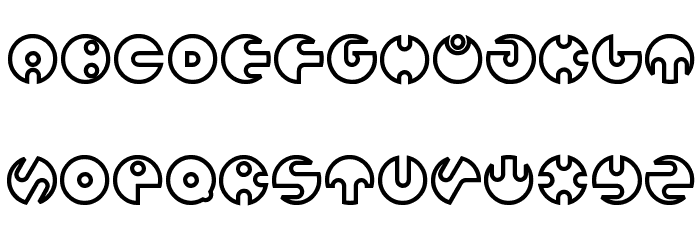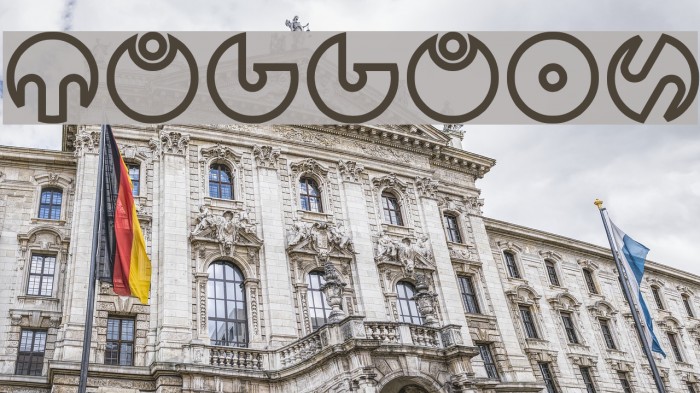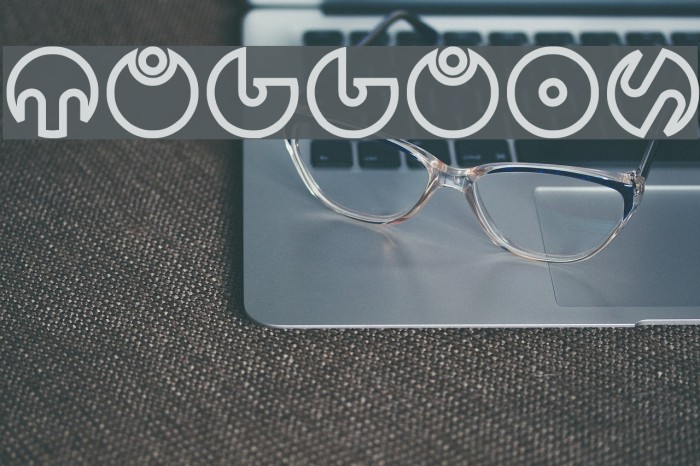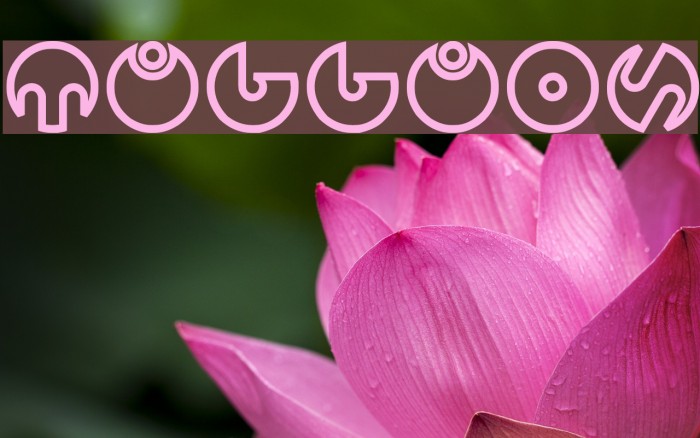
million Font
This font features a bold, geometric style with a futuristic and abstract appearance. The characters are composed of thick, circular shapes with unique cutouts and negative spaces that create a sense of movement and intrigue. The uppercase letters are particularly striking, with each character maintaining a consistent weight and width, contributing to a cohesive look. The lowercase letters mirror this style, offering a harmonious balance between the two cases. The numbers and special characters follow the same design principles, ensuring uniformity across the entire typeface. This font's distinctiveness makes it ideal for projects that require a modern and eye-catching aesthetic.
A bold, geometric font with futuristic and abstract design elements.
- Proposed Projects: Ideal for branding, logos, posters, and any project seeking a modern, eye-catching aesthetic.